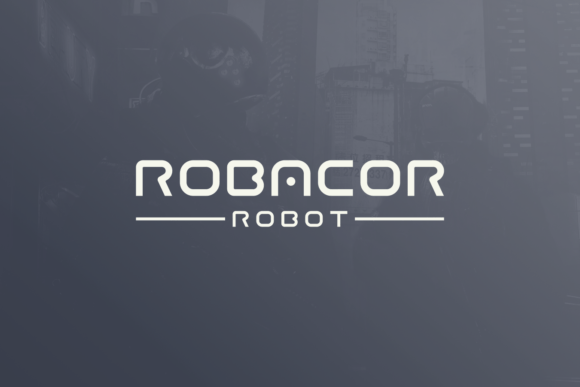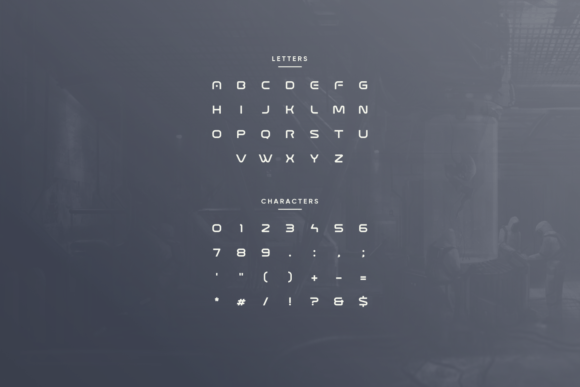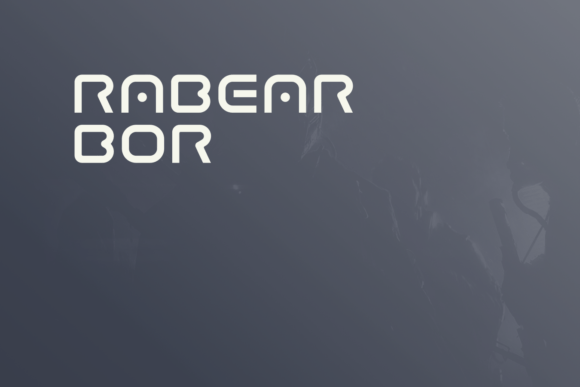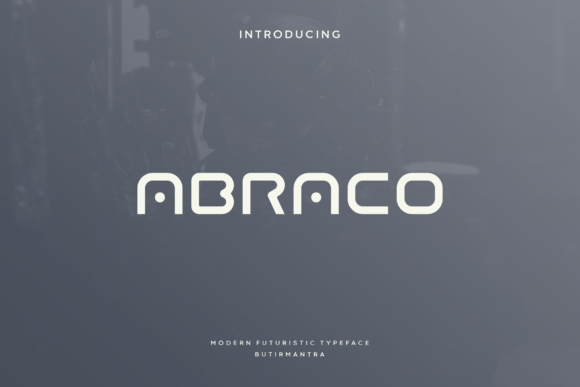
The Futuristic Font That’s Taking My Designs to the Next Level: Abraco
I still remember the frustration of working on a science fiction-themed project, searching for the perfect font that would give it a cutting-edge feel. My client wanted something modern, sleek, and futuristic, but I was coming up empty-handed. That was until I stumbled upon Abraco, a minimalist display font that’s been a game-changer for my designs.
An Honest Review of Abraco
What I Love About Abraco ✨
• ✅ Sleek and modern design: Abraco’s lines and letterforms are incredibly sleek, giving any project a contemporary appearance that’s perfect for science fiction or technological themes.
• ✅ Ease of use: This font is incredibly easy to read, even at smaller sizes, making it versatile for various design applications.
• ✅ OpenType features: Abraco comes with a range of OpenType features, including stylistic alternates and glyphs, which allow for endless creative possibilities.
• ⚠️ Limited suitability for body text: While Abraco is amazing for display text, it may not be the best choice for body text due to its minimalist design.
• ⚠️ Some characters may require manual kerning: Depending on the word or phrase, some characters may require manual kerning to achieve optimal spacing.
The Story Behind Abraco
Abraco was designed by a team of typographers who wanted to create a font that would capture the essence of science fiction and technology. Inspired by the sleek lines and futuristic designs of sci-fi movies and video games, Abraco was born. The font’s name, Abraco, comes from the phrase “abracadabra,” reflecting the magical and futuristic feel of the design.
What is Abraco’s primary use case? Abraco is ideal for display text in projects with a science fiction or technological theme.
Is Abraco suitable for body text? While Abraco can be used for body text, it may not be the best choice due to its minimalist design. It’s recommended for display text or headings.
Does Abraco come with OpenType features? Yes, Abraco comes with a range of OpenType features, including stylistic alternates and glyphs.